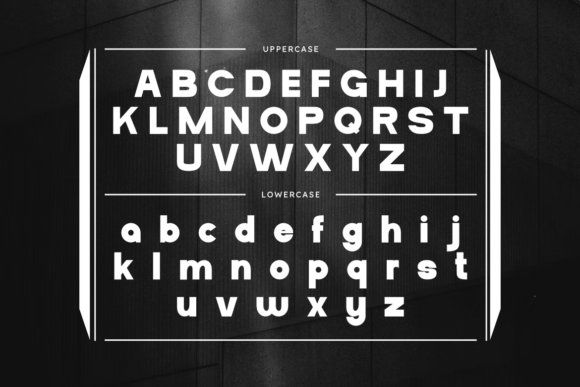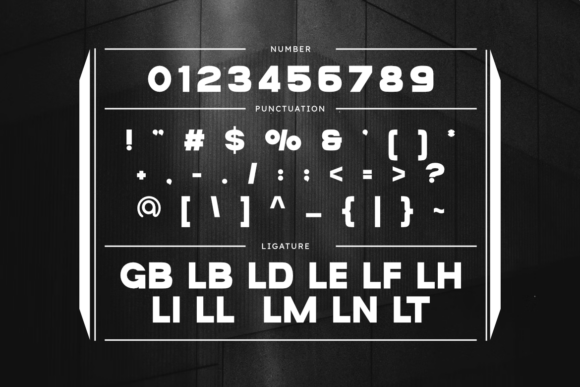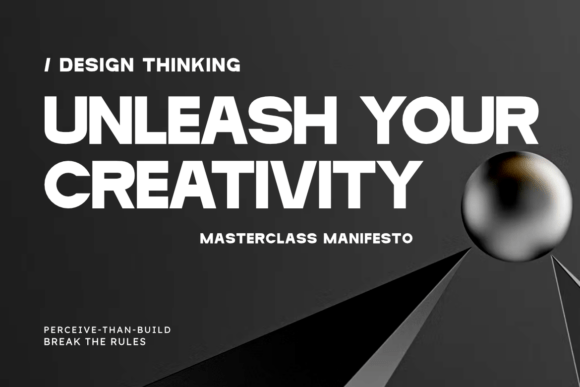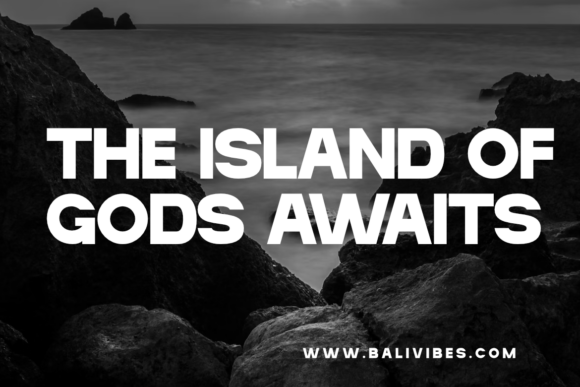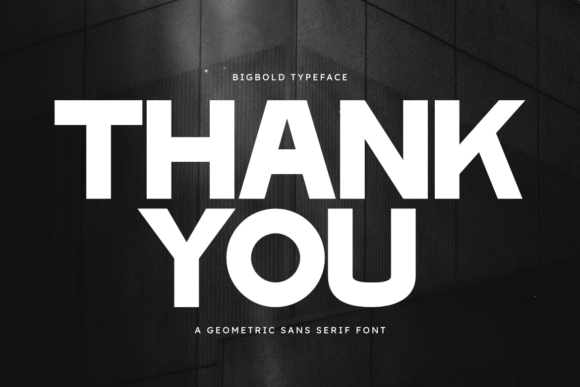
The Power of Typography: Unlocking the Potential of Bigbold Font
As a designer, there’s nothing quite like the thrill of creating a project that truly stands out from the crowd. You’re brainstorming ideas, experimenting with colors, and fine-tuning every detail, all in pursuit of that perfect moment when your design comes together in a way that leaves a lasting impression. And that’s exactly what the Bigbold Font is designed to do – make your message impossible to ignore.
This striking, modern geometric sans-serif font is more than just a stylish choice – it’s a powerful tool for getting your point across. With its bold, rounded form and clean structure, Bigbold Font is the perfect companion for any project that demands attention and clarity. Whether you’re working on a logo, a sports graphic, or a headline, Bigbold Font has got you covered.
Bigbold Font Key Features
- Font Family: Bigbold is a sans-serif font family designed for digital use, making it perfect for headings and titles.
- Font Size: Bigbold is designed to be highly legible at various sizes, but it is recommended to use it at sizes 18pt and above for optimal readability.
- Resolution: Bigbold is optimized for high-resolution displays, making it suitable for use on retina screens and other high-density displays.
- Unique Characteristics: Bigbold features a bold and modern design with a high x-height, making it highly readable even at small sizes. Its unique geometric shapes and rounded edges give it a friendly and approachable feel.
- Language Support: Bigbold supports a wide range of languages, including Latin, Cyrillic, and Greek scripts, making it a versatile font for global applications.
Bigbold Font Review
Overall, I found the Bigbold Font to be a solid choice for headings and titles. It’s a sans-serif font with a bold and modern aesthetic that can work well in a variety of design contexts.
- Easy to read at larger font sizes, making it perfect for headings and titles.
- High contrast between the bold lines and the negative space, which helps to create a visually appealing effect.
- Works well with a range of line heights and font sizes, allowing for a high degree of customization.
- Can be difficult to read at smaller font sizes, which may limit its use in body text or captions.
- Lacks a more subtle, nuanced feel that might be preferred in certain design contexts.
- Doesn’t come in as many weights or styles as some other fonts, which may limit its versatility.
Overall, I think the Bigbold Font is a good choice for designers who need a bold, modern font for headings and titles. However, it may not be the best fit for body text or designs that require a more subtle aesthetic.
Tips for Getting the Most Out of Bigbold Font
Bigbold font is ideal for creating bold headings and titles. To get the most out of it, use it sparingly and in combination with other fonts to create visual interest.
Use Bigbold font to highlight important information, such as headings, titles, and key statistics.
Bigbold font is commonly used in:
1. Headings and titles.
2. Branding and logos.
3. Infographics and data visualizations.
Alternatives to Bigbold Font
Poppins Font is a sans-serif font designed by Indian Type Foundry. It’s a modern and clean font suitable for digital products, apps, and websites. Poppins Font is a great alternative to Bigbold Font as it offers a similar feel but with a more subtle touch.
Comparison: Poppins Font is more versatile and can be used in a wider range of applications, from body text to headings. Bigbold Font is more dramatic and suitable for emphasis, while Poppins Font is more neutral.
Montserrat Font is a sans-serif font designed by Julieta Ulanovsky. It’s a geometric font inspired by the urban landscape of Montserrat, Argentina. Montserrat Font is a great alternative to Bigbold Font as it offers a similar modern feel but with a more geometric approach.
Comparison: Montserrat Font is more condensed and suitable for small screens, while Bigbold Font is more expansive and suitable for larger screens. Montserrat Font is also more versatile and can be used in a wider range of applications.
Inter Font is a sans-serif font designed by Rasmus Andersson. It’s a modern and neutral font suitable for digital products, apps, and websites. Inter Font is a great alternative to Bigbold Font as it offers a similar feel but with a more subtle touch.